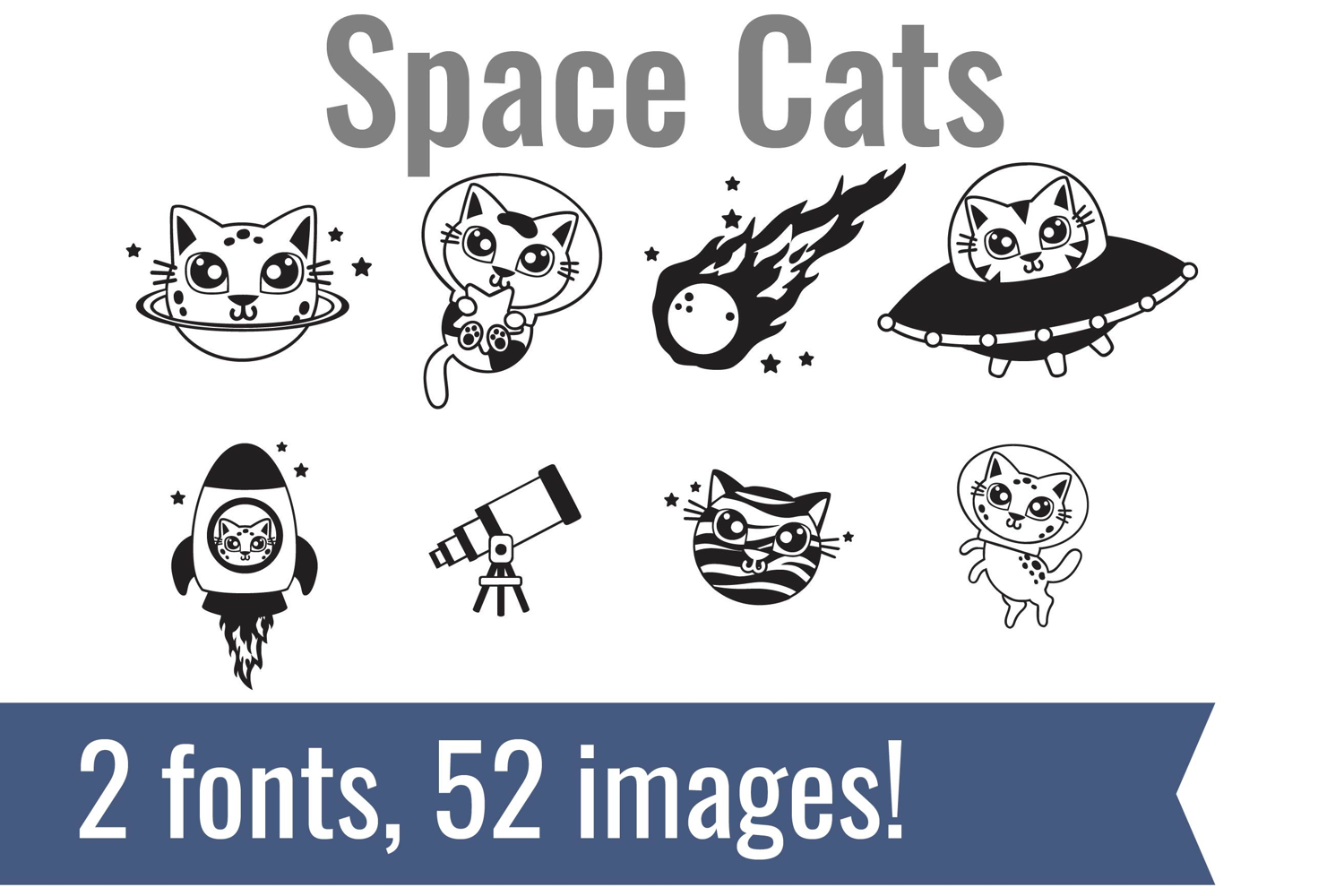
Space Cats Dingbats
Unlock endless creativity with two perfectly coordinated fonts! There are two dingbat fonts in this bundle, featuring the cutest space cats and space puns with references to love and Valentine's Day.